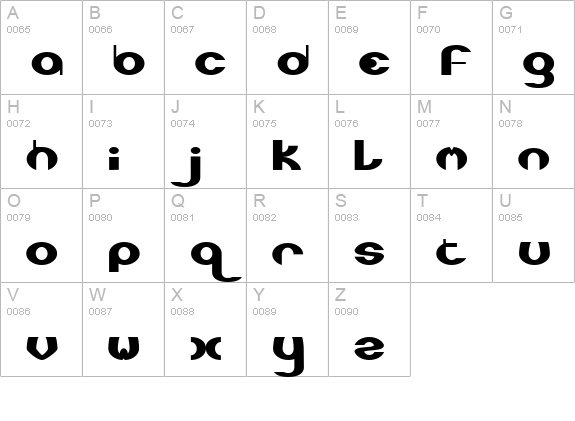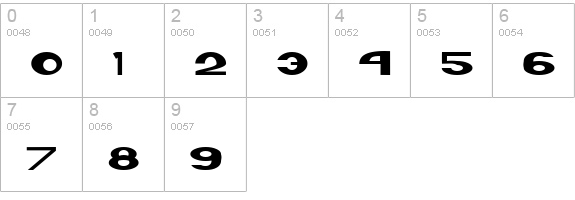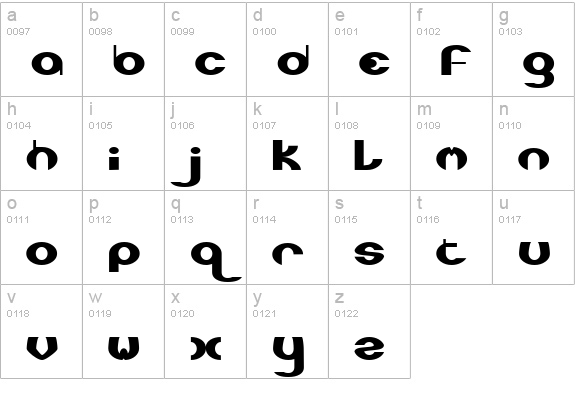
Stereophonic 1 Font Details
Stereophonic 1 font is a modern and stylish typeface that exudes a sense of sophistication and elegance. Its sleek lines and sharp angles make it perfect for adding a touch of class to any design project. With its unique blend of geometric shapes and contemporary flair, Stereophonic 1 font is sure to make a statement. This versatile font is ideal for a wide range of applications, from branding and logos to headlines and social media graphics. Its bold and eye-catching appearance is sure to grab attention and leave a lasting impression. Best of all, Stereophonic 1 font is available for free download at FontsMarket.com. So whether you're a seasoned designer looking to add a new font to your collection or a newcomer in need of a stylish typeface for your project, Stereophonic 1 font is the perfect choice. Download it today and elevate your designs to the next level.